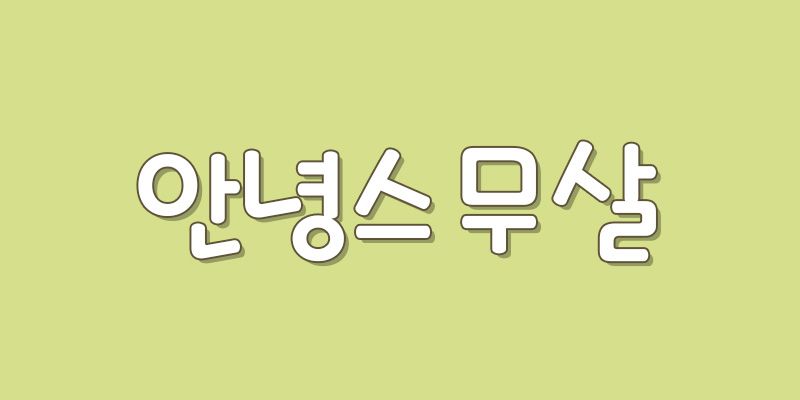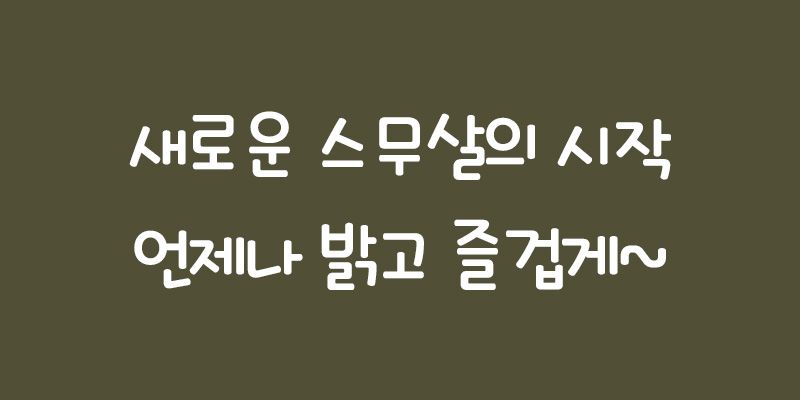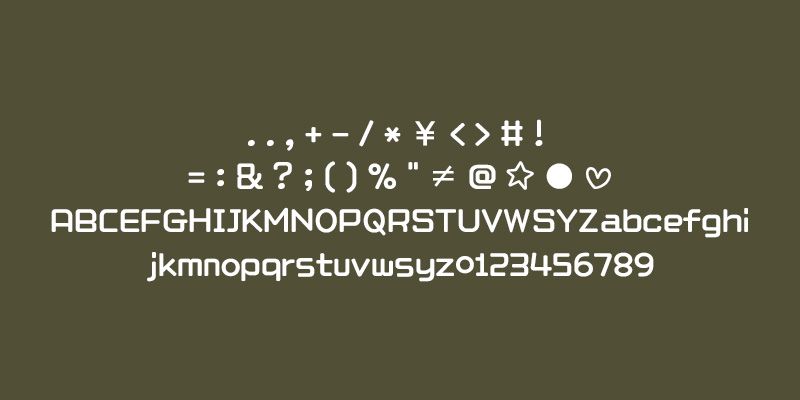
RixHelloTwenty is light and refreshing font with handwritten design. Enlarged types and variable structure was applied to make it original and energetic.